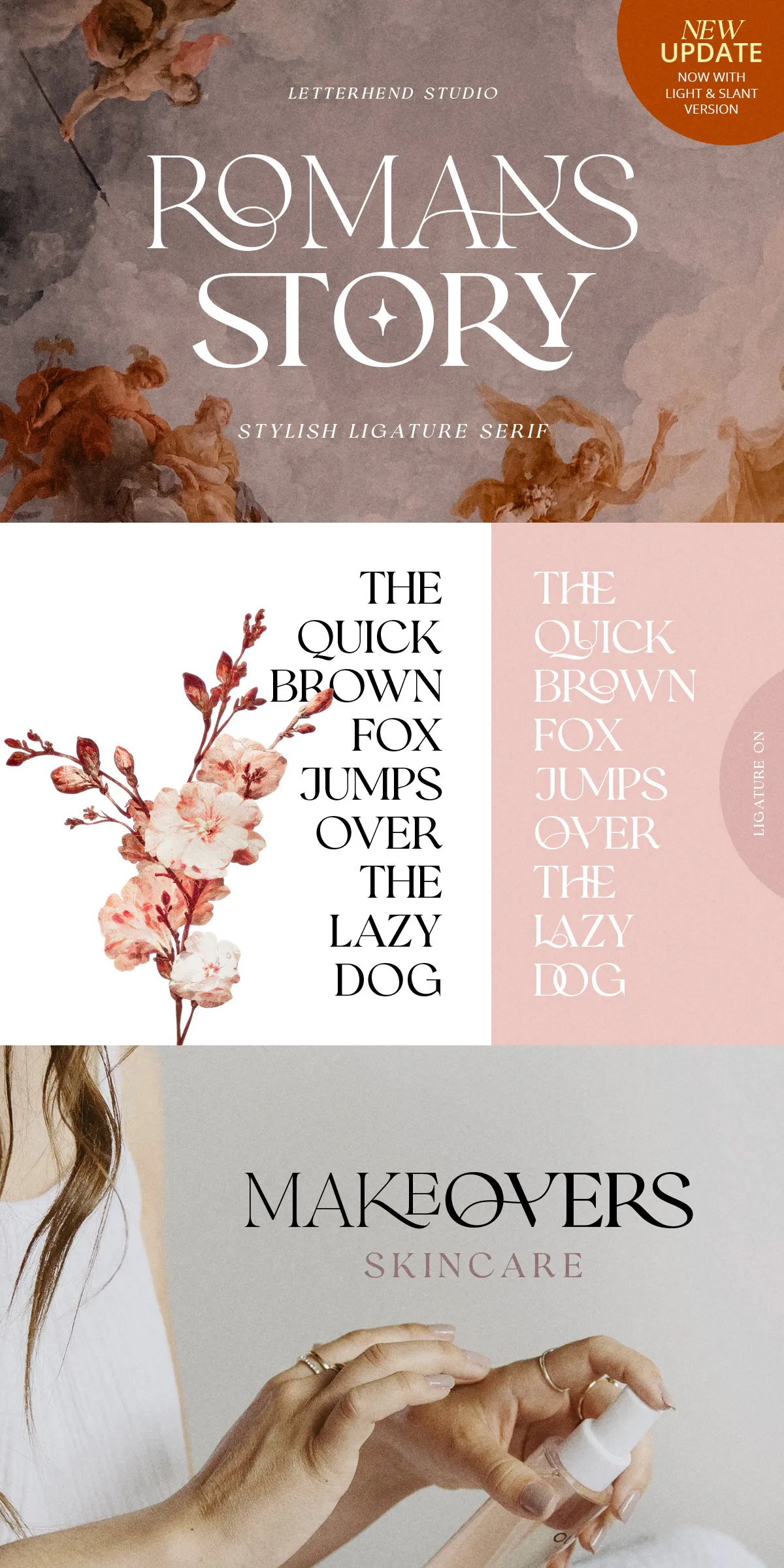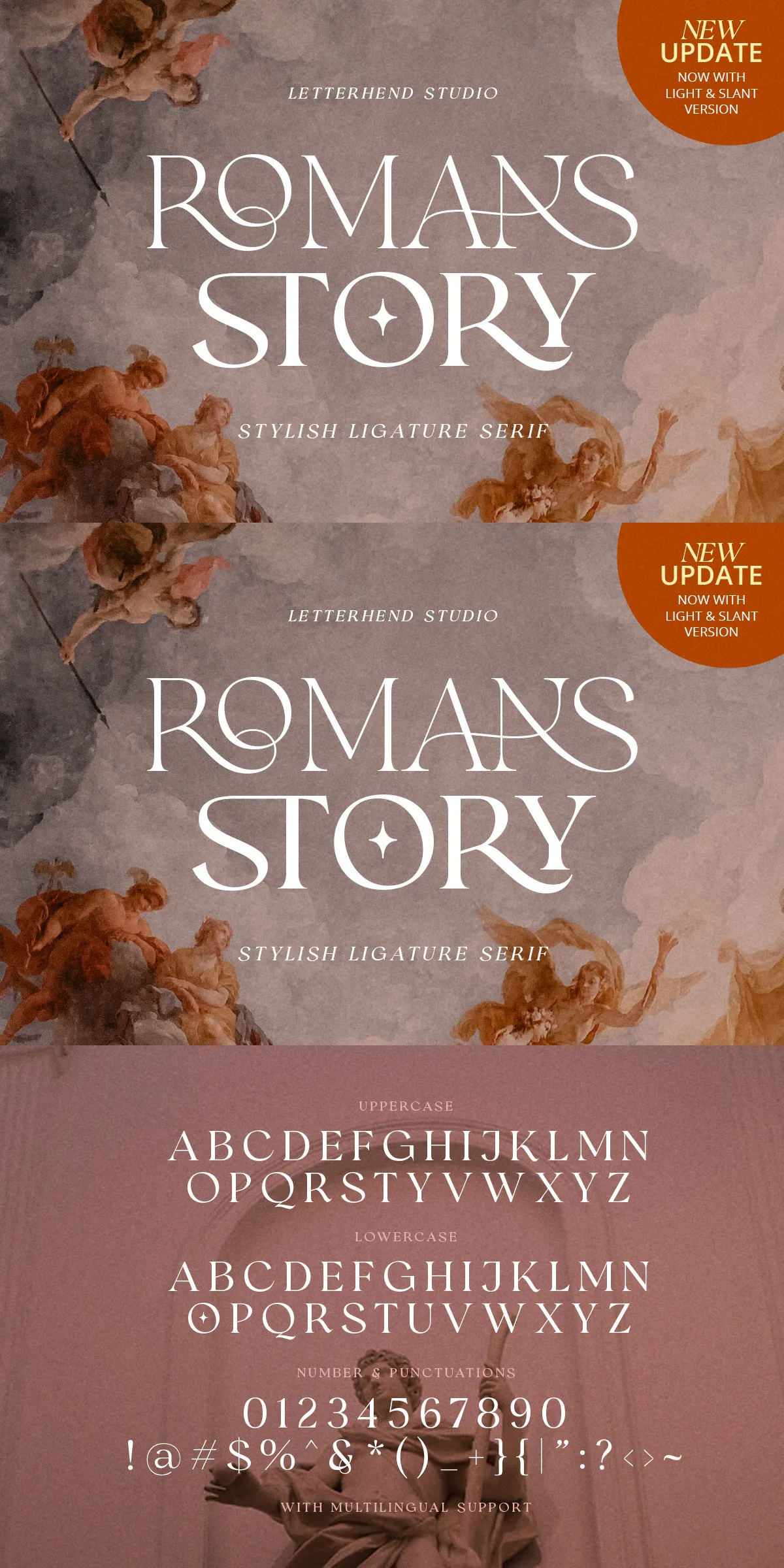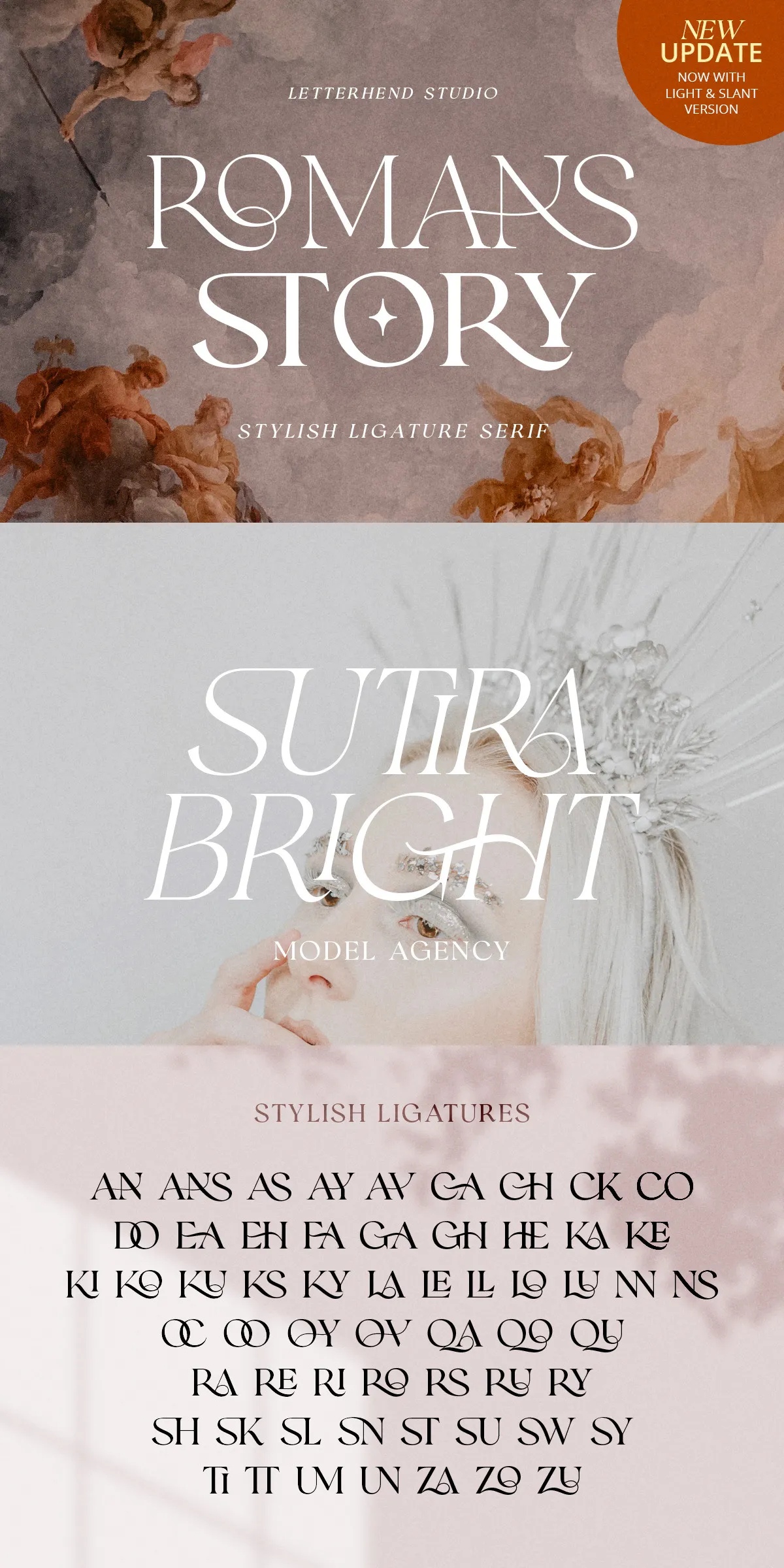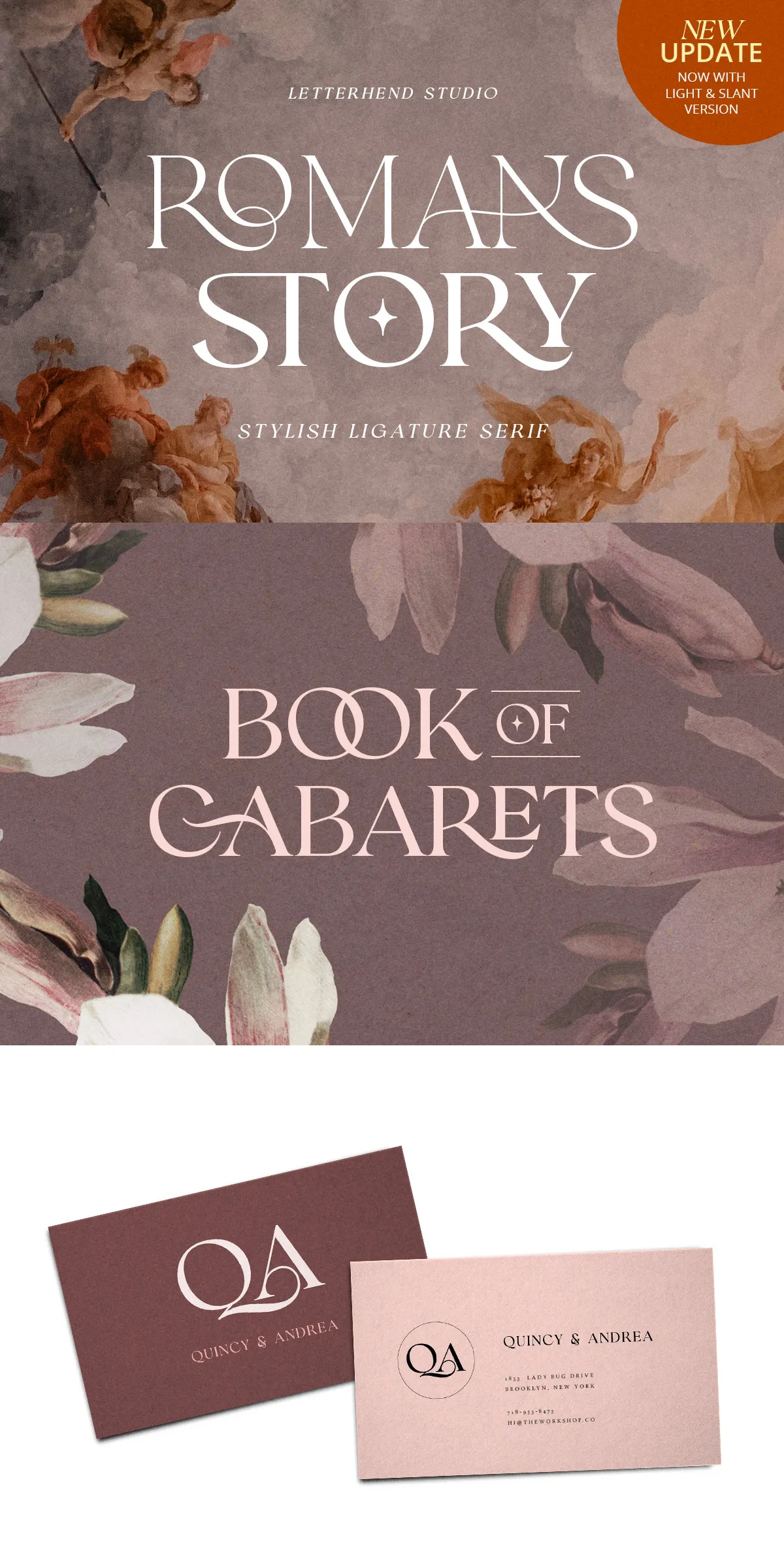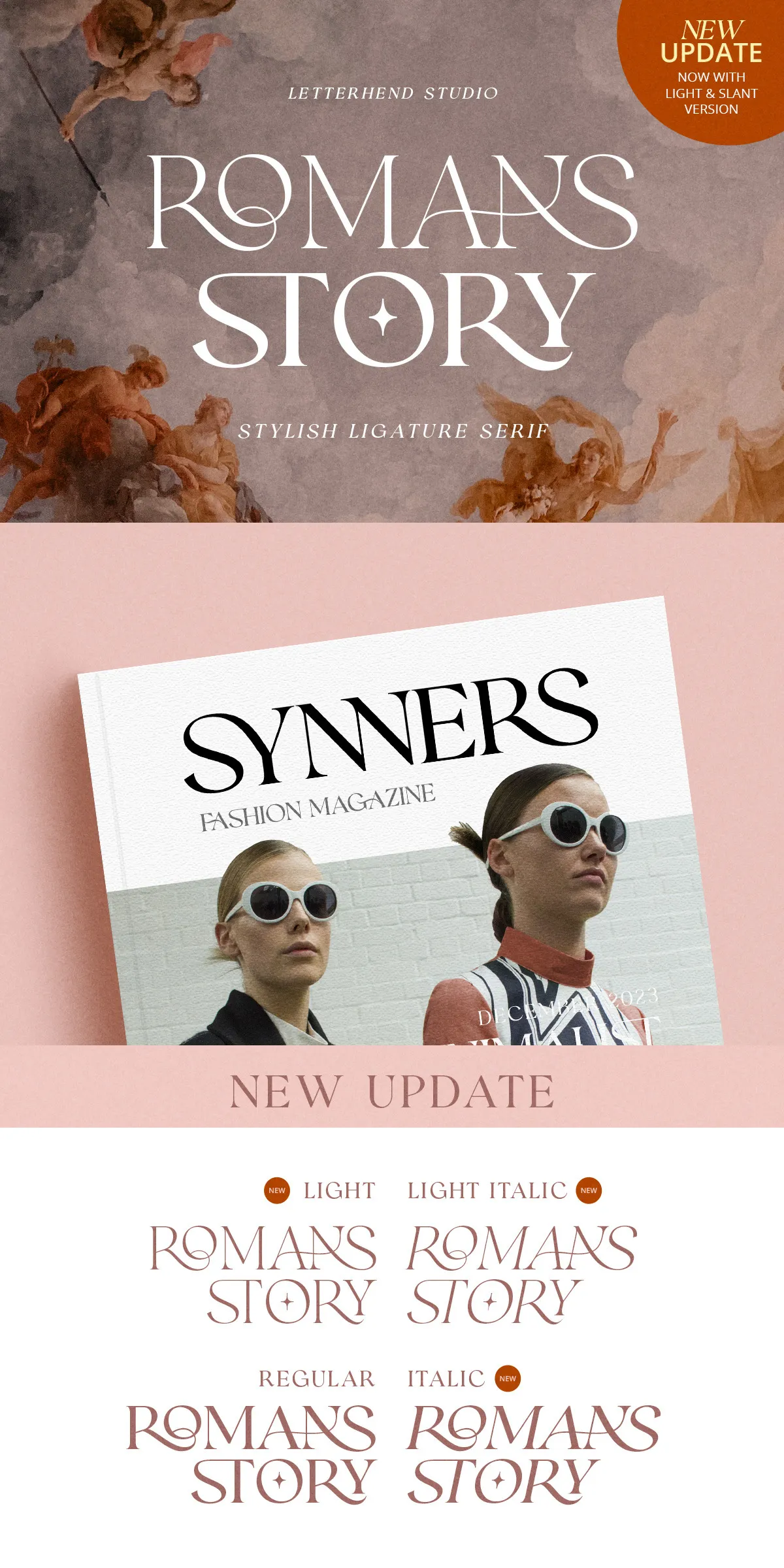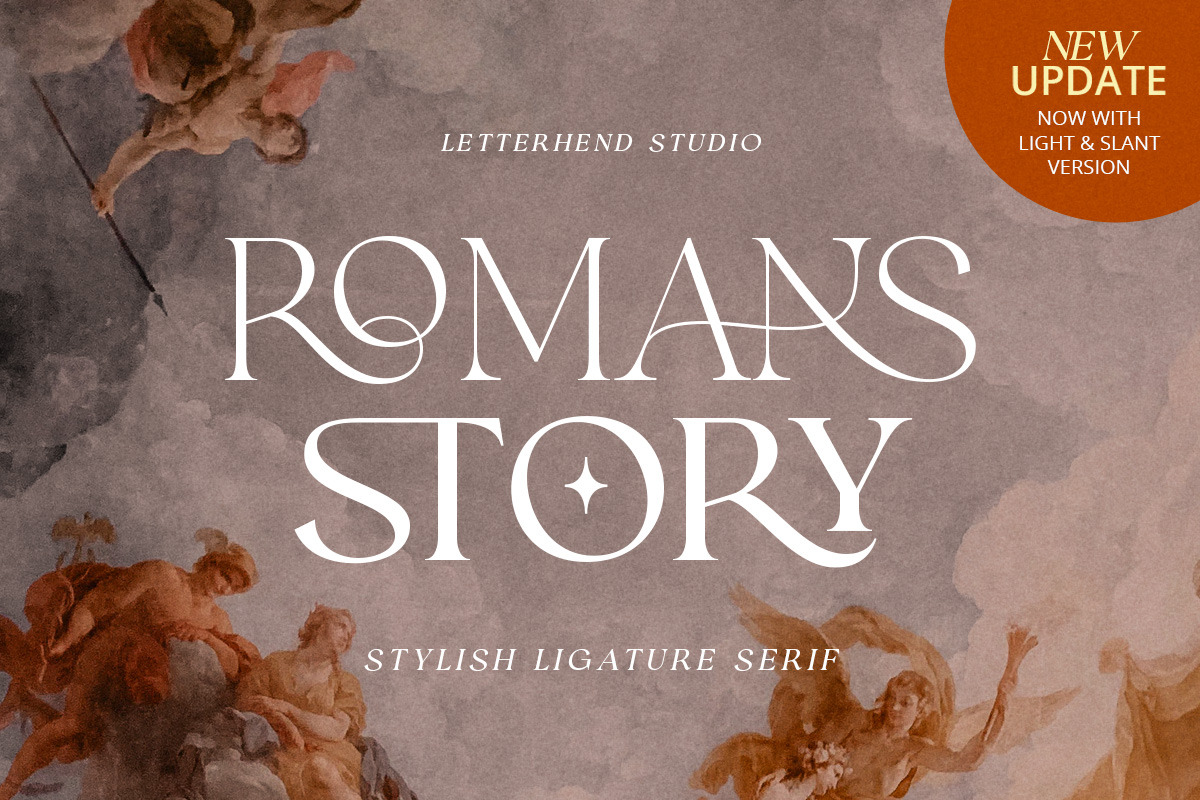
Romans Story is a sophisticated ligature serif font meticulously crafted to bring a premium and luxurious feel to your design projects. Recently updated, this font now includes new Light, Italic, and Light Italic styles, expanding your creative possibilities and allowing for even greater typographic expression.
Exciting New Styles Added
We are thrilled to announce the addition of three new styles to the Romans Story family: Light, Italic, and Light Italic. These new weights and slants provide designers with more flexibility to create refined and elegant compositions. Whether you want a softer, lighter touch or a stylish italic variation, Romans Story now offers the perfect options to enhance your work.
Distinctive Features for Unique Typography
Romans Story stands out from typical serif fonts thanks to its carefully designed ligatures and alternates. These features add a unique flair and sophistication to your typography, making your designs truly memorable. The font is PUA encoded, which means all special characters and glyphs are easily accessible without requiring advanced software.
Comprehensive Character Set
- Numbers and Punctuation: Complete set for professional and polished text.
- Multilingual Support: Covers a wide range of languages, making it suitable for global projects.
- Ligatures and Alternates: Enhance your typography with elegant connections and stylistic variations.
Ideal Uses for Romans Story
Romans Story’s luxurious and refined style makes it an excellent choice for a variety of design projects, including:
- Branding and Logo Design: Create elegant and distinctive brand identities.
- Editorial and Print: Enhance magazines, books, and other publications with sophisticated typography.
- Invitations and Stationery: Design classy and memorable invitations and printed materials.
- Packaging: Add a premium touch to product packaging that stands out.